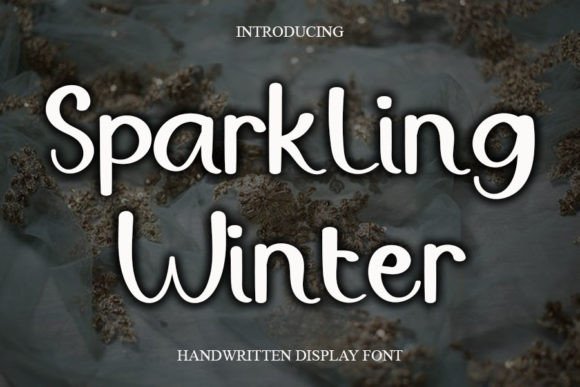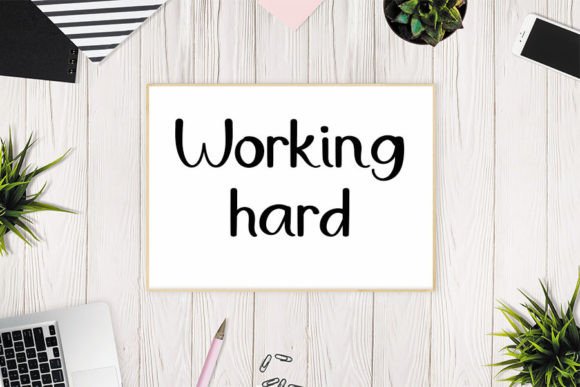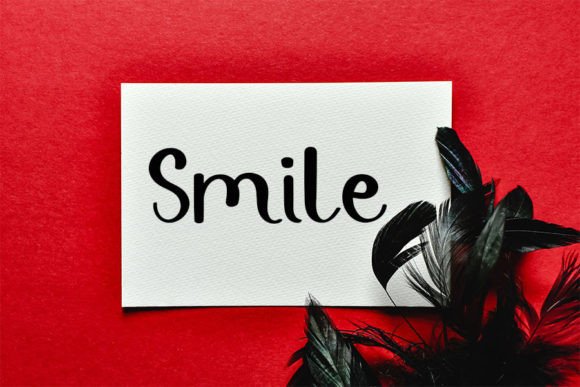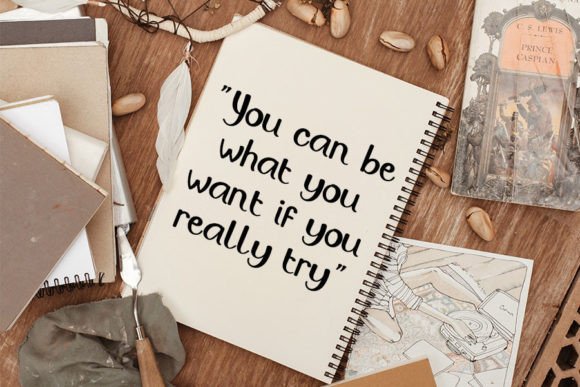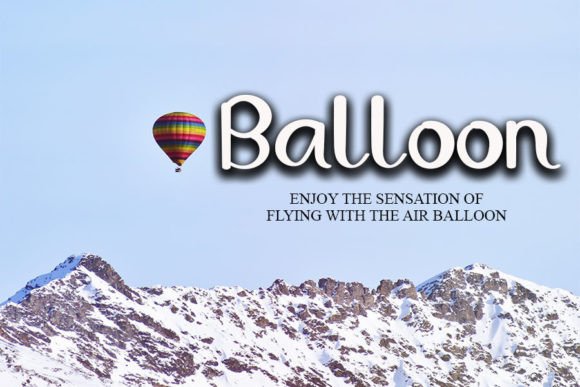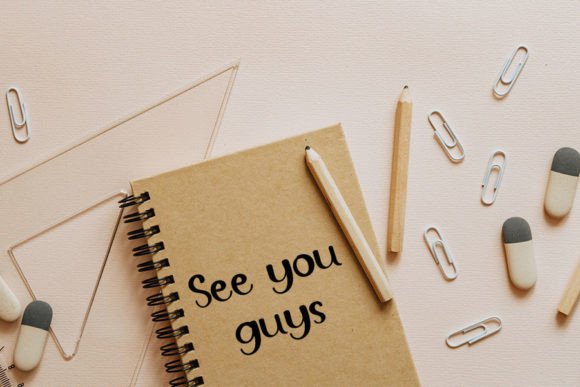
Sparkling Winter Font
About Sparkling Winter Font
The Sparkling Winter Font Download is a cute and casual handwritten typeface with an incredibly warm and friendly feel. Designed to capture the essence of natural handwriting, this font adds a personal and approachable touch to any project. Its playful yet elegant strokes create a look that feels both relaxed and stylish, making it ideal for a wide range of creative applications.
Whether you’re looking for fonts for Instagram posts, social media graphics, or calligraphy scripts for DIY projects, Sparkling Winter adapts beautifully to both digital and print designs. Its charm lies in its ability to make any creative idea stand out while maintaining a clean, cohesive look.
Features of Sparkling Winter Font
By choosing the Sparkling Winter Font Download, you’ll enjoy a range of features designed for flexibility and style:
• Casual handwritten design with a friendly, inviting look
• Neat and smooth strokes for maximum readability
• Versatile use across crafts, digital platforms, and print designs
• Balanced structure that feels playful yet professional
• Timeless style suitable for both personal and commercial projects
Best Uses for Sparkling Winter Font
The Sparkling Winter Font Download is highly versatile, making it a great fit for multiple design contexts, including:
• Instagram posts and social media content – Create approachable and stylish visuals
• DIY projects and crafts – Add a handwritten charm to personalized designs
• Wedding invitations and greeting cards – A warm, casual style for memorable stationery
• Logos and branding – Ideal for boutique or lifestyle businesses seeking a friendly vibe
• Product packaging – Enhance labels, tags, and wrappers with a playful touch
• Posters and event flyers – Casual, eye-catching typography that connects with audiences
• Home decor prints and quotes – Perfect for cozy, inspiring wall art
Why Choose Sparkling Winter Font
The Sparkling Winter Font Download stands out because of its approachable personality and broad adaptability. Unlike overly formal script fonts, Sparkling Winter strikes the perfect balance between casual and elegant, ensuring it works well for both personal and professional designs.
Designers value this font for its clean readability and unique character, which make it suitable for everything from social media graphics to handcrafted invitations. Its friendly tone resonates well with audiences, giving your projects a memorable, human touch.
The Sparkling Winter Font Download is a casual and cute handwritten script that combines warmth, elegance, and versatility. With its friendly strokes, smooth readability, and broad range of applications, this font is perfect for Instagram, DIY crafts, invitations, logos, and beyond.